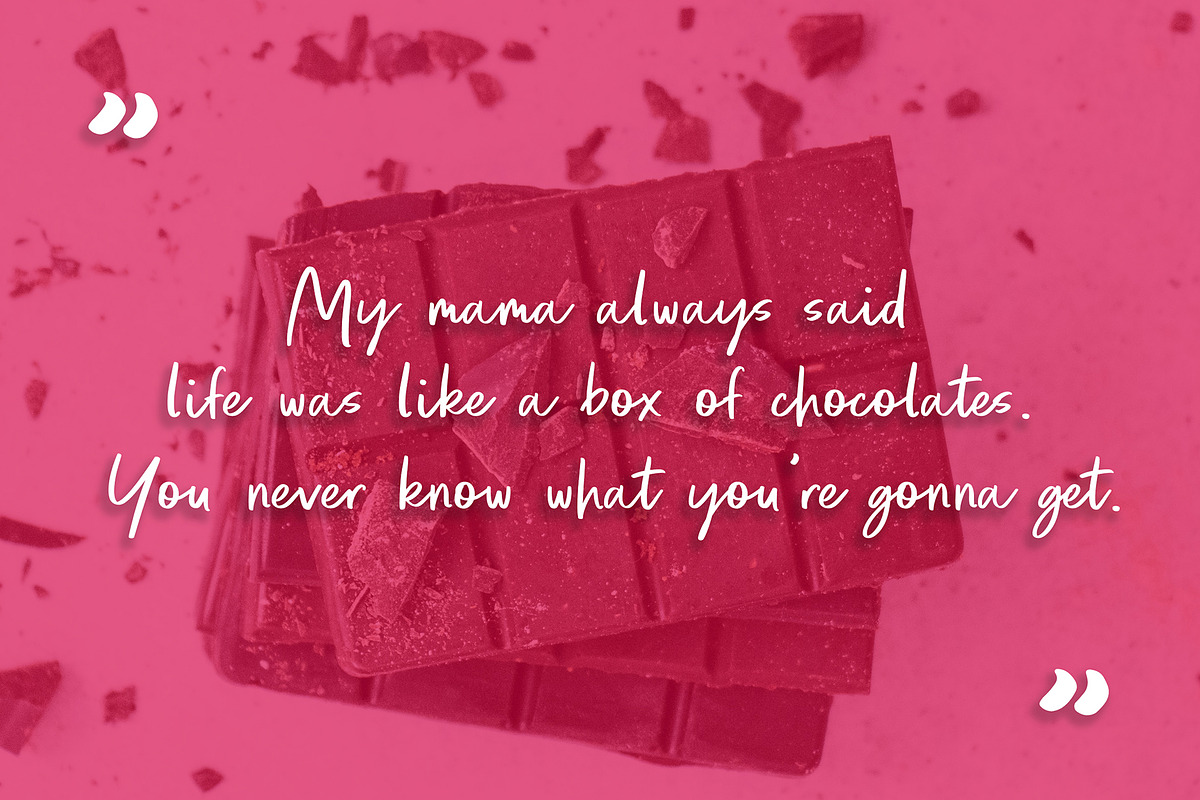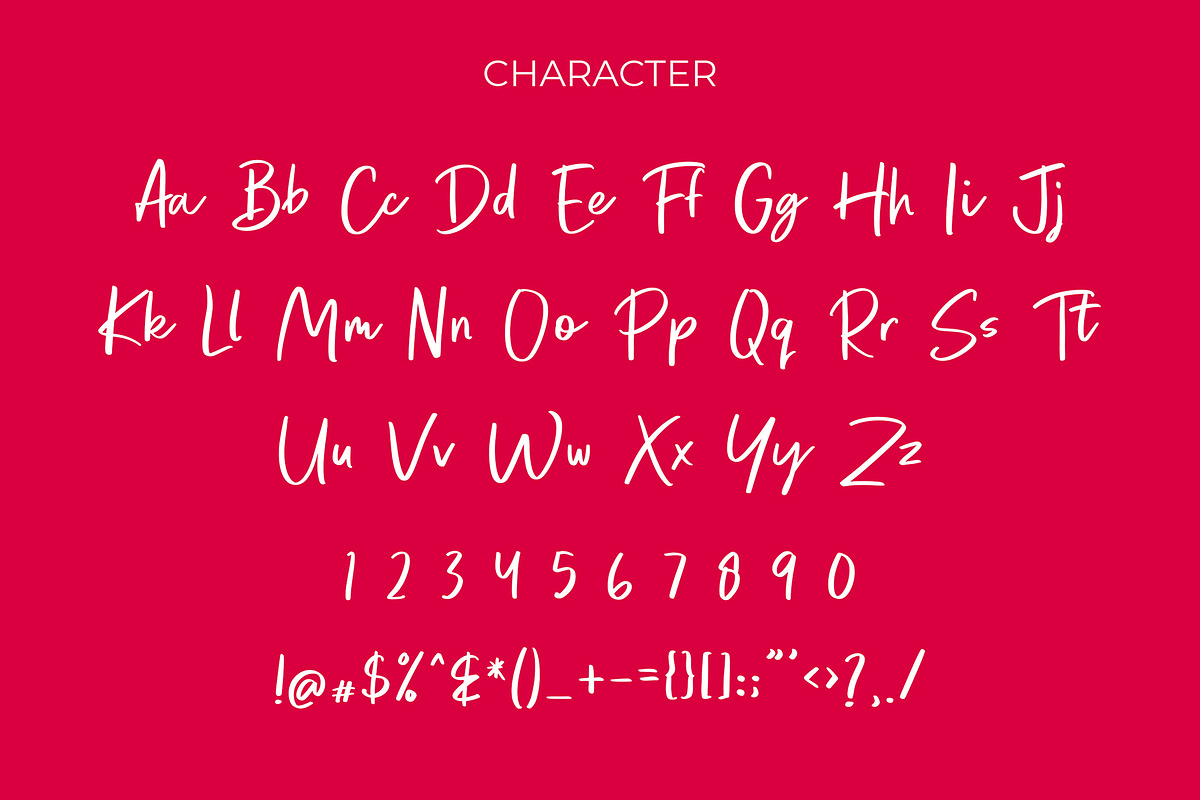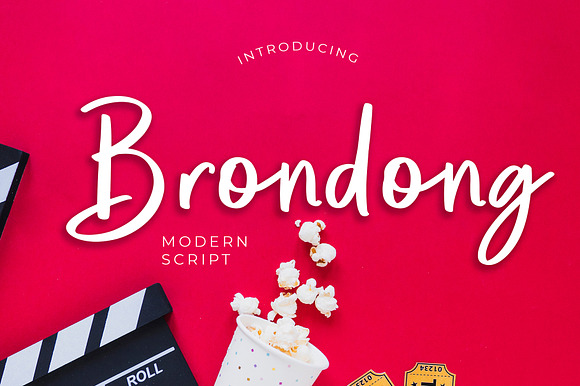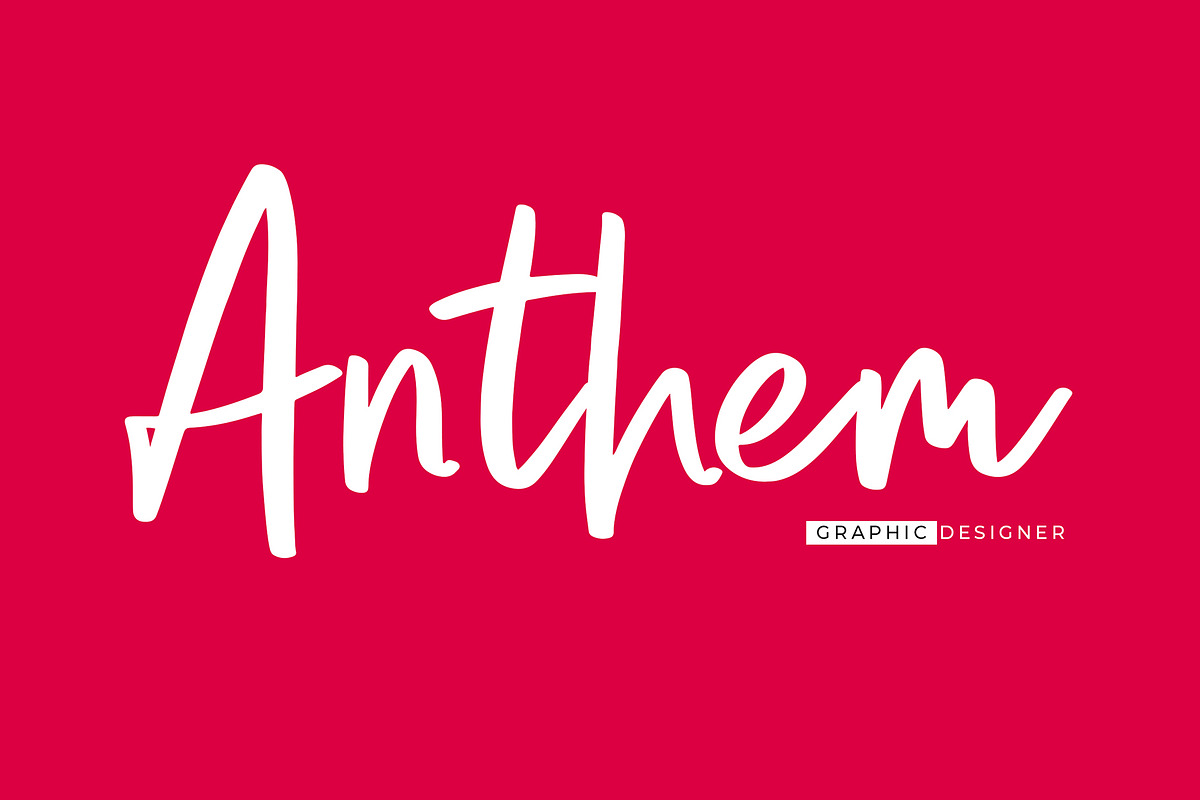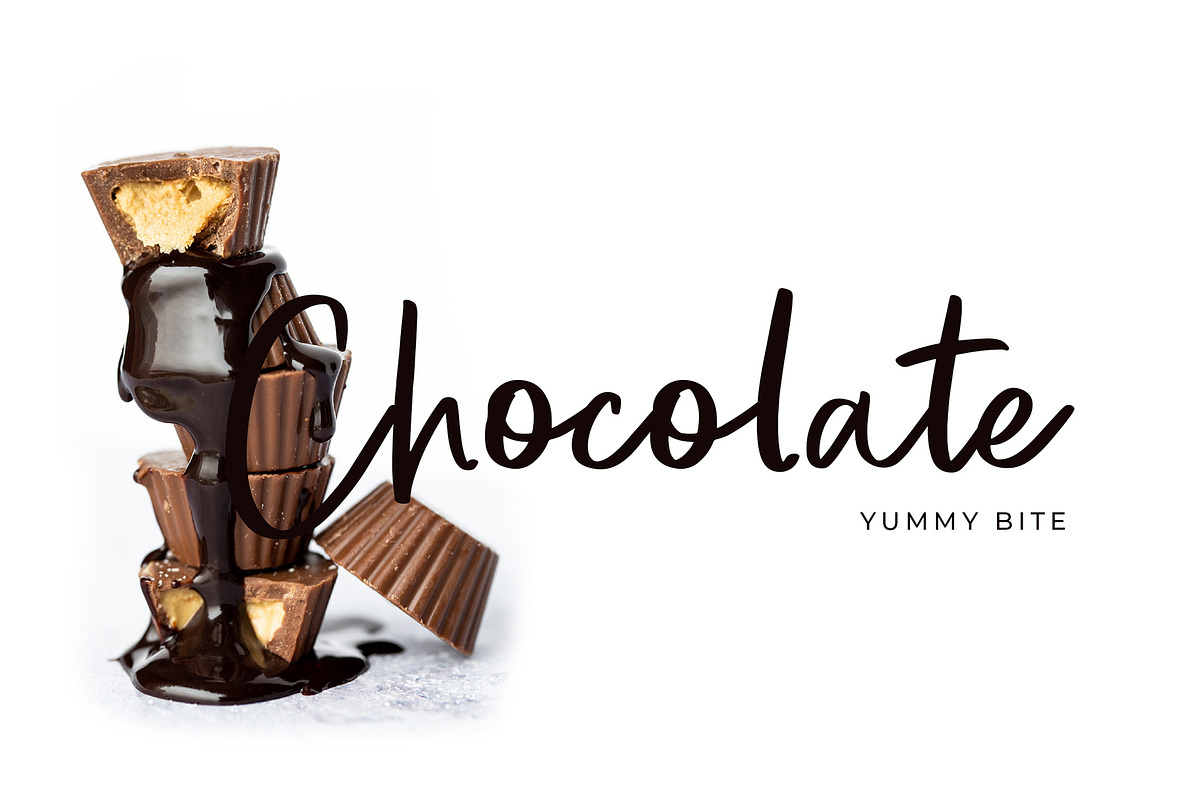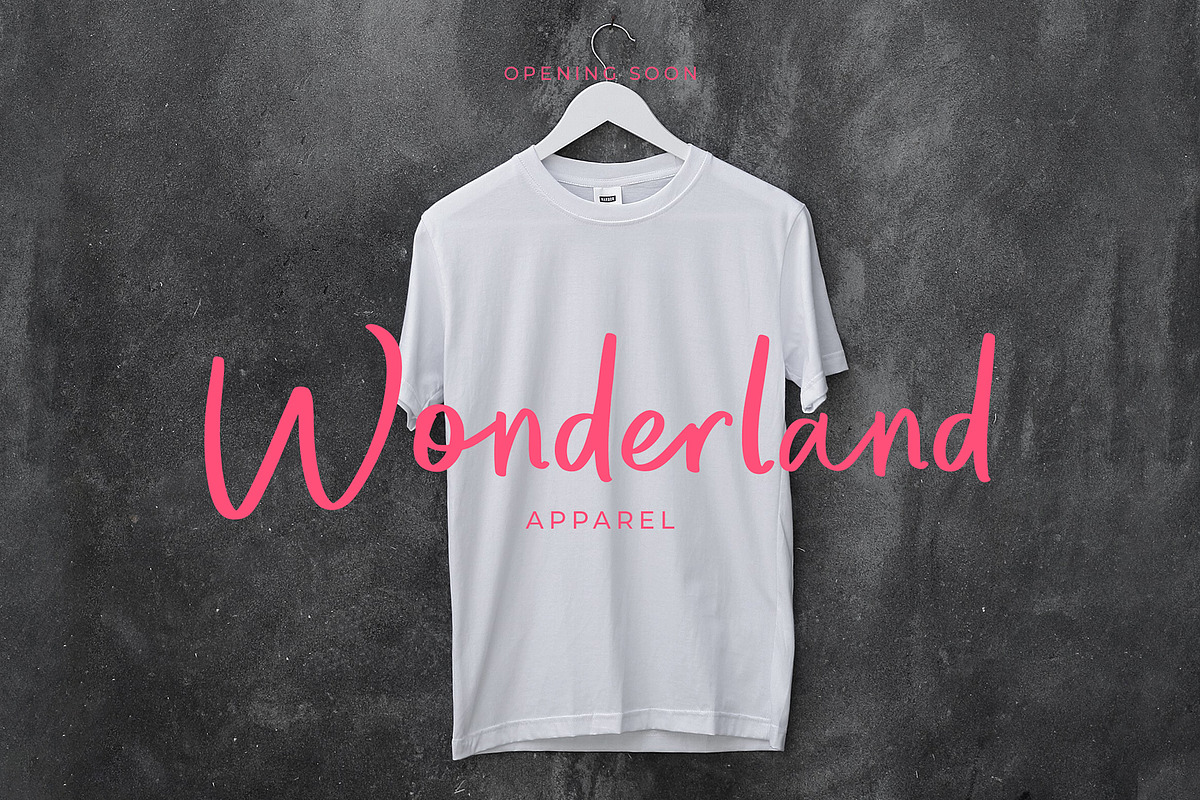
Brondong Modern Script Font
Brondong is a Modern Script font can make your text appear elegant, luxurious, and modern!
Brondong is perfect for branding projects, logo, wedding designs, social media posts, advertisements, product packaging, tshirt design, product designs, label, photography, watermark, invitation, stationery and any projects.
Brondong Modern Script Font by Formatika Studio fits naturally into Branding, posters, packaging, typography.